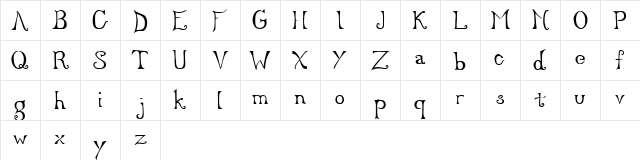
Serenity Regular
Design Context for Serenity
Serenity is a composed and adaptable typeface that performs quietly and consistently across a wide range of design contexts.
Pro Tip: Use Serenity in both headline and body roles to test its range before committing to a single application.